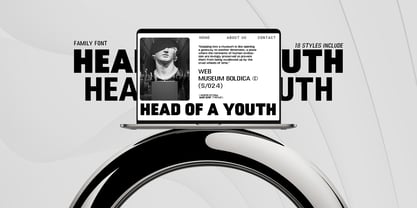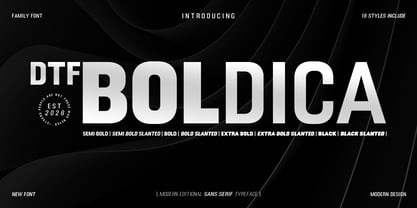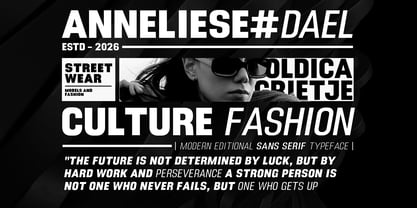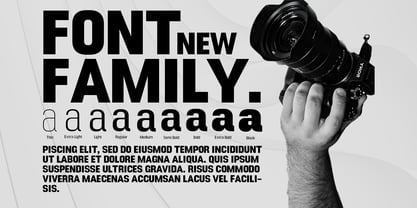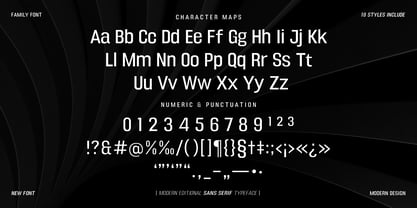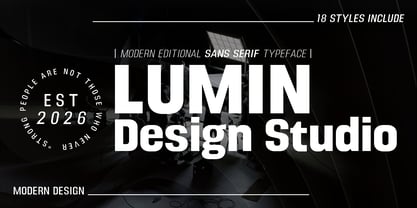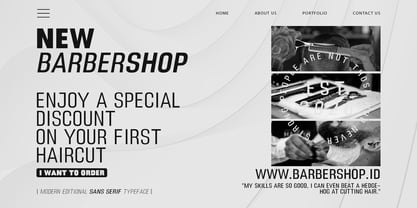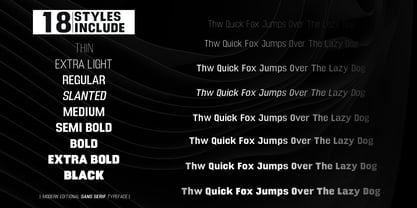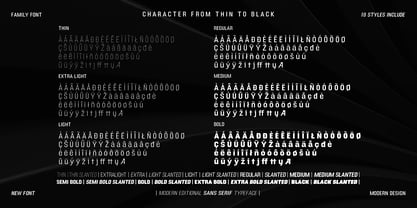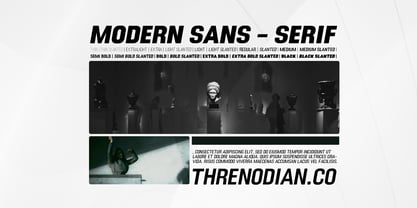
DTF Boldica
The DTF Boldica Font Family was designed by Zahratul Laila and published by Dora Typefoundry. DTF Boldica contains 18 styles and family package options. More about this family
Boldica is a modern sans-serif font family characterized by bold forms, precise proportions, and a commanding presence. Each character strikes a balance between geometric simplicity and contemporary aesthetics, resulting in a clean, confident look that instantly grabs attention. With a total of 18 styles—including upright and slanted versions—this font offers exceptional versatility for a wide range of professional design needs.
Engineered for maximum visual impact, the font is ideal for branding, corporate identity, posters, editorial layouts, product packaging, logos, and digital media. Its robust letterforms, combined with balanced spacing and typographic rhythm, ensure excellent legibility at both large and medium sizes. Its modern character makes it an excellent choice for projects that aim to convey a premium feel.
More than just a display typeface, Boldica is a typographic solution that strengthens a brand's visual identity. The variety of weights and slanted styles gives designers the freedom to effectively establish information hierarchy without compromising visual consistency. The result is a versatile, professional font family ready to meet the demands of modern design across both print and digital platforms.